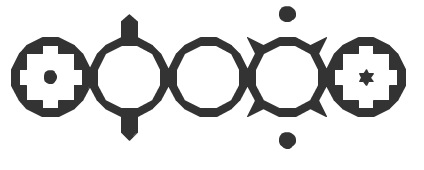
• Here is the result of my pervious project Foldart. This is a Conlang looking at consonants as diacritics. Note on text: To use this font ensure that a vowel precedes a consonant as these are placed within the vowel circle. If you have a stand alone consonant use the hyphen [-] as a carrier.
how do you write words starting with a consonant?